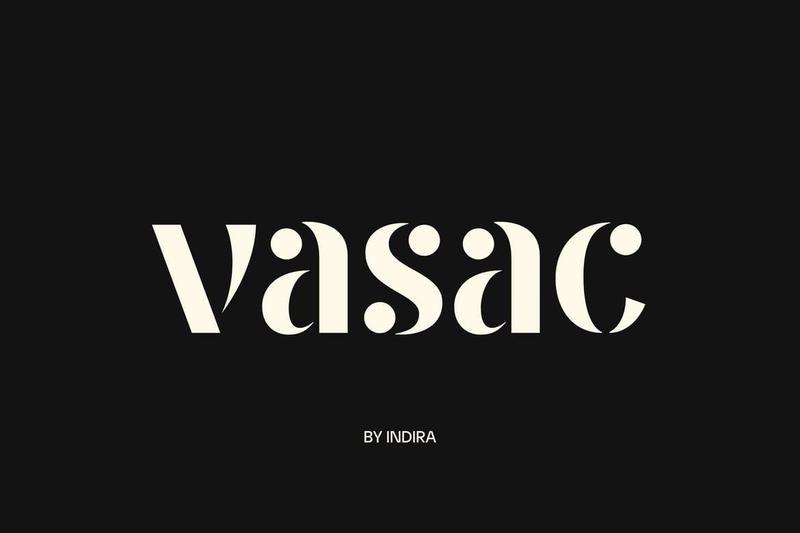
Vasac – Logo Sans 4Q29386
**Vasac** font is a modern and elegant display font designed to bring a refined touch to any logo and brand identity. With its unique geometric construction and bold yet graceful letterforms, this font creates a clean and minimal visual presence that feels both artistic and professional. Perfect for fashion and corporate use, Vasac blends classic elegance with a contemporary edge, making it an excellent choice for high-end branding projects.
Carefully crafted for visual impact, Vasac fonts perform beautifully across intro layouts, editorial design, and premium brand applications. Its balanced structure and distinctive style ensure readability while maintaining a strong and memorable identity. Whether youre building a modern logo, developing a clean corporate system, or crafting a sophisticated fashion brand, Vasac offers a stylish and timeless typographic solution.